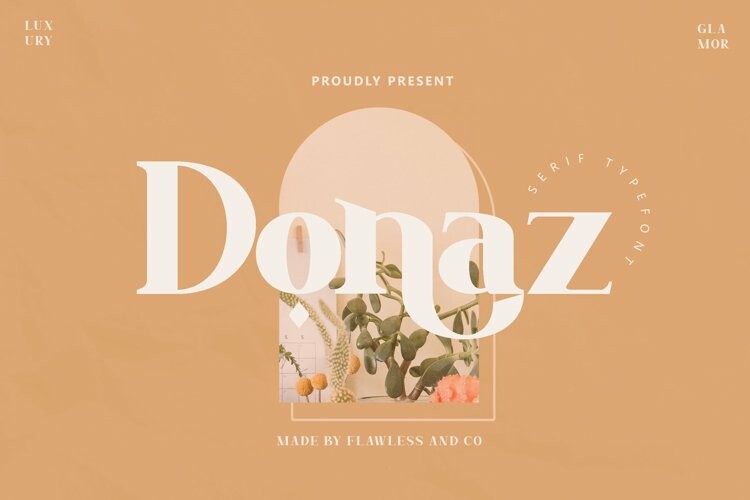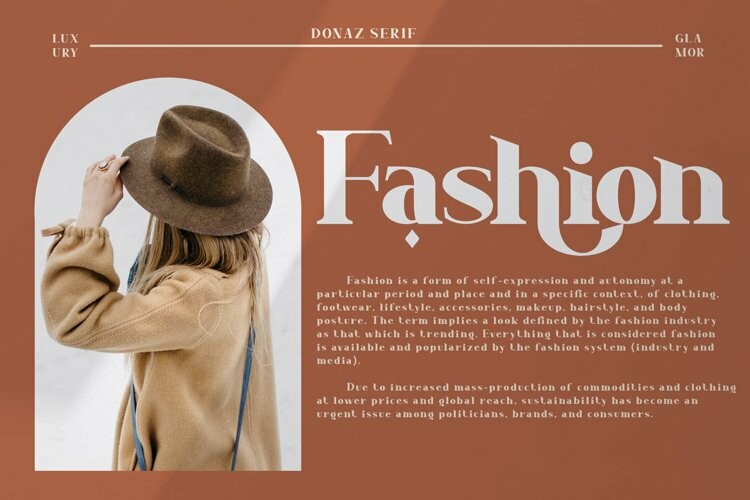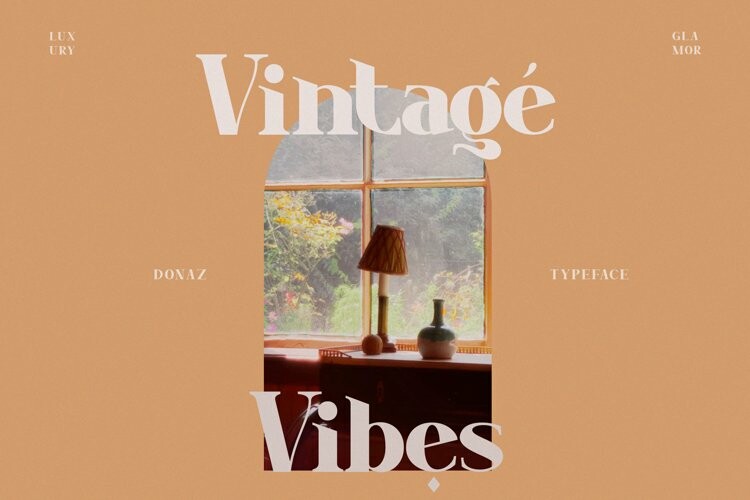
Donaz Font
Donaz FontDonaz is a Modern Serif Font that made with an elegant style in each character, so it’s fitted for some wedding invitation display.
There’s some connected letters and some alternates that suitable for any graphic designs such as branding materials, t-shirt, print, business cards, logo, poster, t-shirt, photography, quotes .etc
This font support for some multilingual. Also contains uppercase A-Z and lowercase a-z, alternate character, numbers 0-9, and some punctuation.